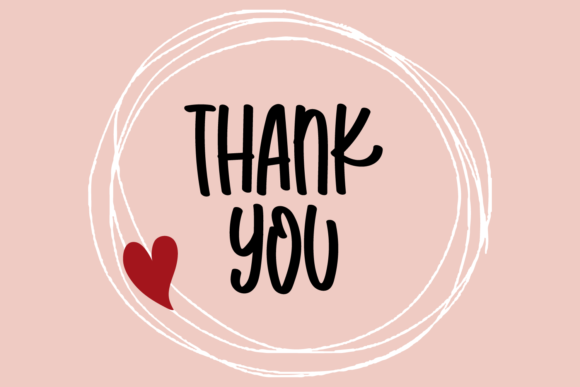
Handwritten Font
Handwritten is a sweet and friendly script font. Featuring characters that dance along the baseline, this font will add a cute spark to any design project that you wish to create!